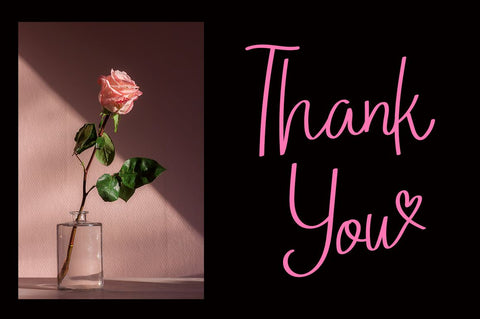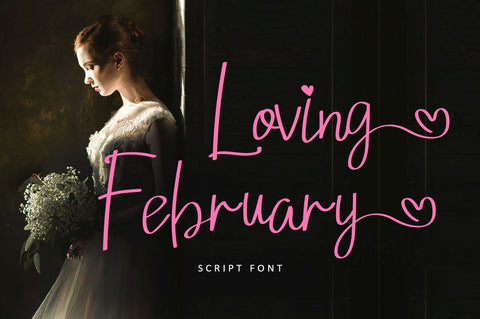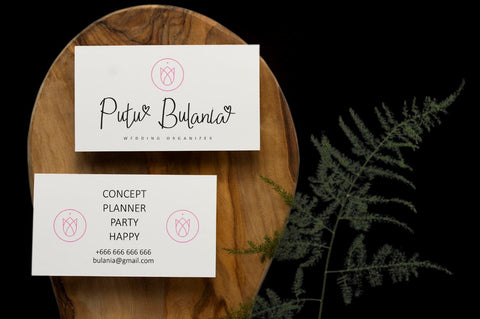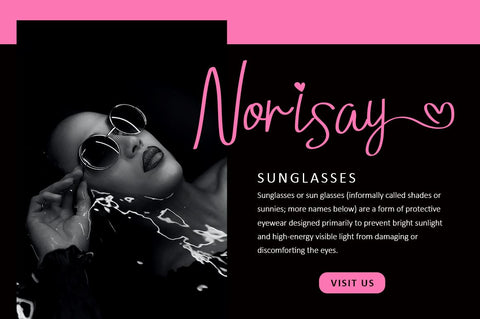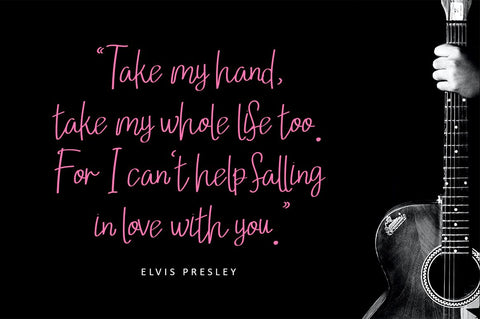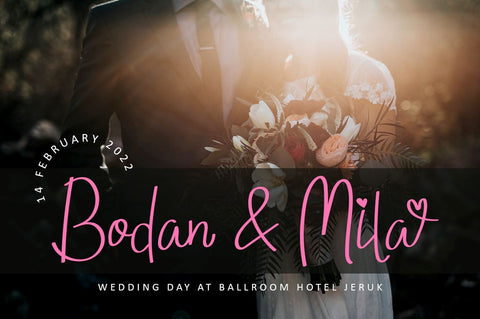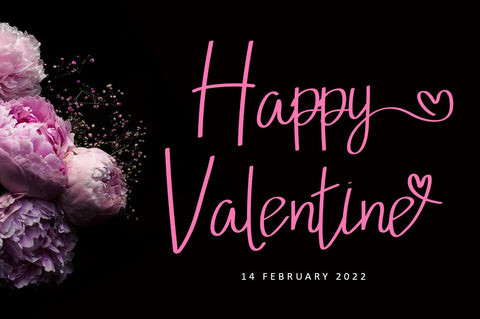
Loving February - Valentine Font
Loving February is a lovely script font featuring charming, playful handwritting, and have special love alternates characters that seem to dance along the baseline. Add this font to your most creative ideas for Valentine days projects, and notice how it makes them love designs to stand out! Can be used various purposes such as magazine, logos, wedding invitations, headings, name cards and so much more.